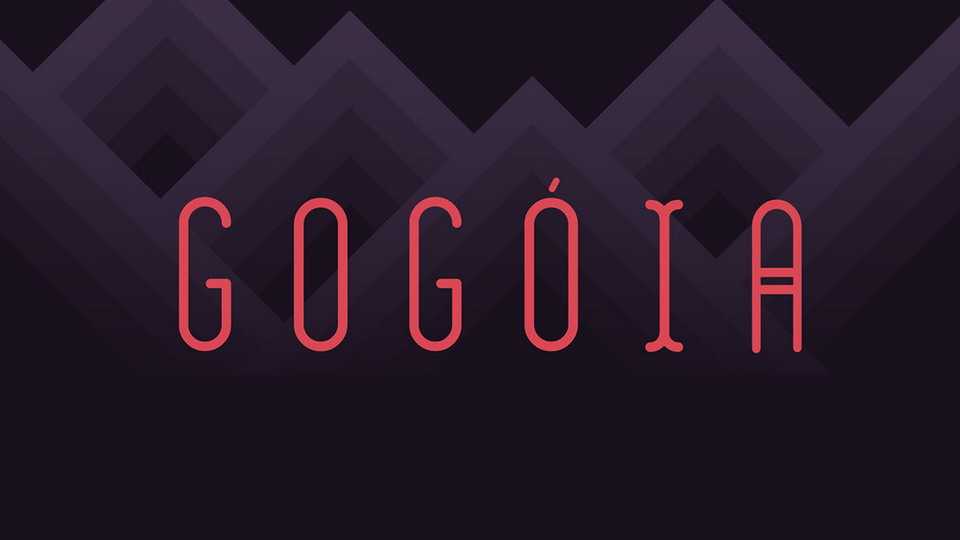
Download Gogoia font, a yummi juicy typeface inspired by brazilian tropicalism. Gogoia font family includes two styles – Regular and Deco with extended language support.
Designer: Alan de Sousa Silva